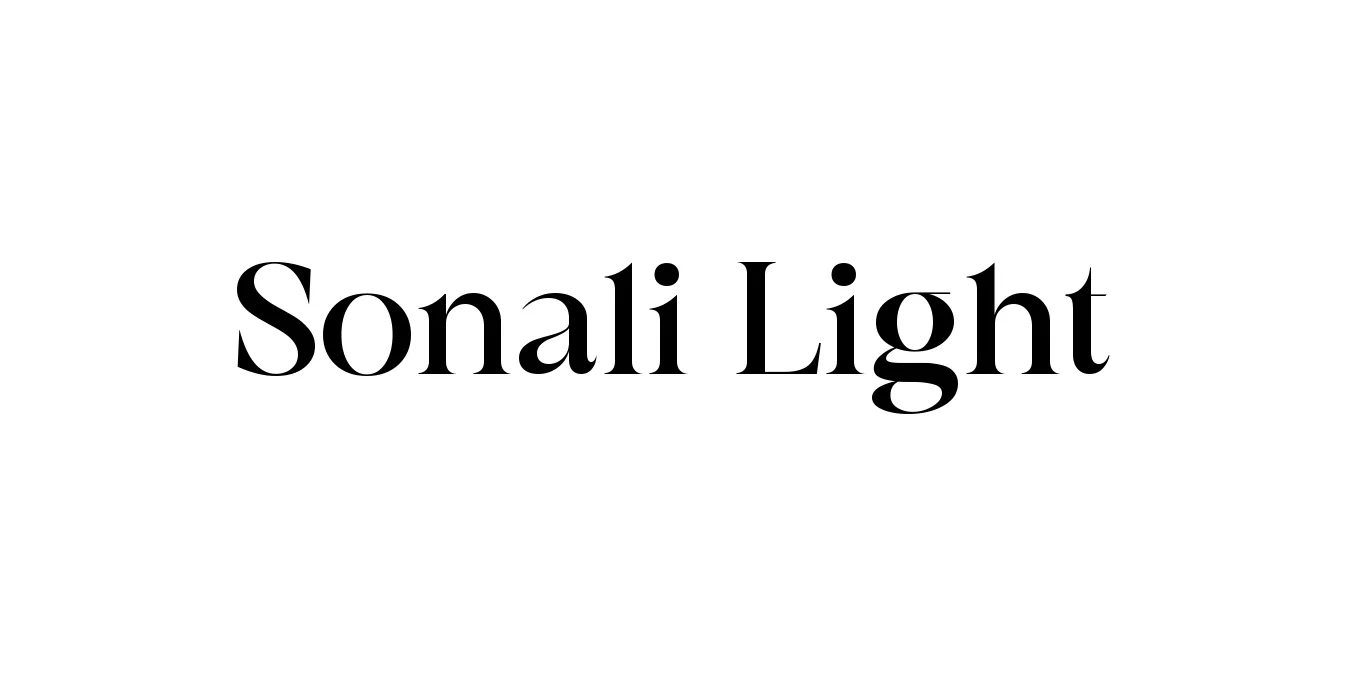
Sonali Light
Designed by Mustafa Jabbar
Sonali Light is a sophisticated and streamlined typeface that belongs to the wider Sonali font family, known for its significant impact on regional typesetting and digital documentation. This specific weight offers a delicate balance between modern minimalism and classical structure, featuring clean strokes and high legibility. The design focuses on reducing visual clutter, making it an excellent choice for layouts that require a breathable, airy aesthetic without sacrificing professional integrity.
Historically, the Sonali typeface evolved as a reliable standard for both print and early digital media. Its light variant was engineered to provide a refreshing alternative to heavier weights, allowing designers to create hierarchy in complex documents. Whether used in high-resolution printing or on-screen interfaces, Sonali Light maintains its character integrity, standing out as a versatile tool for contemporary graphic designers worldwide.
Sonali Light Best Uses
Excellent for magazine body text and clean, sophisticated layout spreads.
Ideal for minimalist UI components and modern blog typography.
Perfect for creating professional business cards and streamlined brand identities.
Provides high readability on small screens due to its open apertures and light weight.